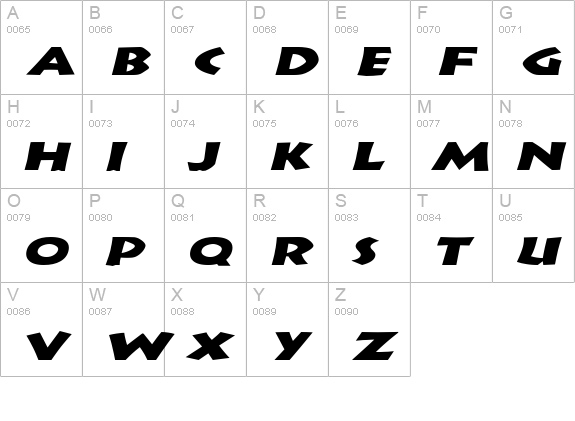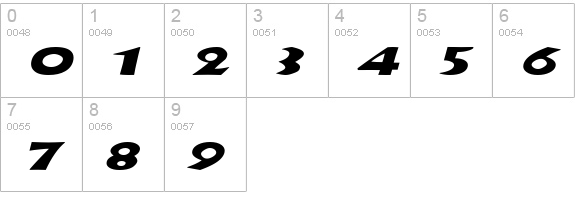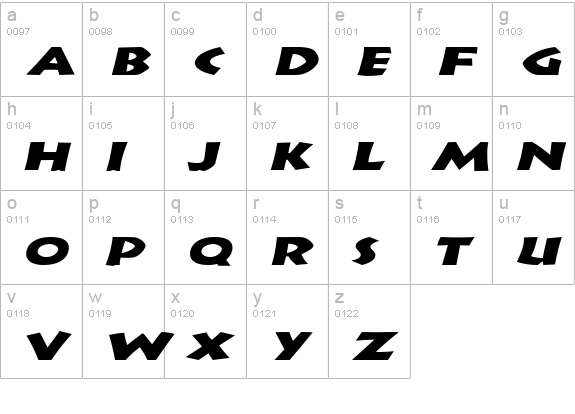
Indy Extended Italic Font Details
Indy Extended Italic is a distinctive, extended-width, italic variant in the Indy typeface family \xE2\x80\x94 well suited to design and typography projects.
Indy Extended Italic font is a stunning and elegant typeface that exudes sophistication and style. Its gracefully slanted letterforms are the perfect balance between modernity and traditionalism, making it a versatile choice for a wide range of design projects. With its elongated and graceful strokes, Indy Extended Italic font evokes a sense of elegance and refinement. Whether used for headlines, logos, or body text, this font adds a touch of class to any design. One of the standout features of Indy Extended Italic font is its legibility. The carefully crafted letterforms ensure that every word is easily readable, even at smaller sizes. This makes it a great choice for both print and digital media, ensuring that your message is effectively communicated to your audience. What makes Indy Extended Italic font even more remarkable is that it is free. Yes, you read that right – this beautiful font is freely available to download at FontsMarket.com. Now you can add a touch of sophistication to your design projects without breaking the bank. So, whether you're designing a wedding invitation, a luxury brand logo, or a high-end magazine layout, Indy Extended Italic font is the perfect choice. Its timeless elegance and availability as a free download make it a must-have for designers looking to create stunning and impactful designs.